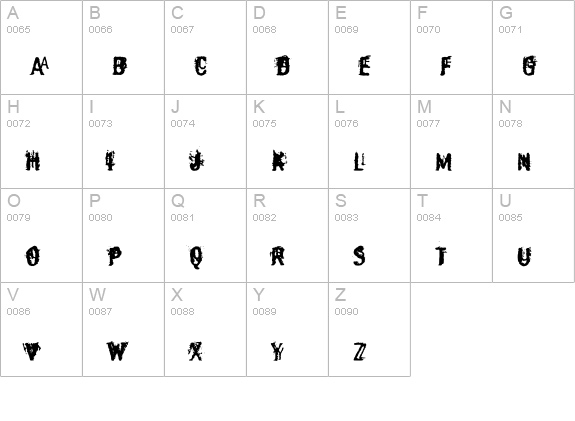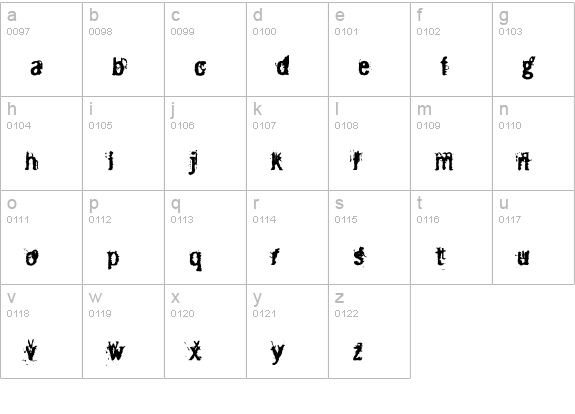
IndecisionDirty Font Details
IndecisionDirty font is a captivating and unique typeface that effortlessly blends the essence of uncertainty with a touch of grunge. Designed for those who embrace the beauty in imperfection, this font exudes a sense of wavering decisions and raw creativity. With its rough edges and uneven lines, IndecisionDirty font showcases a spirited character that adds a distinctive charm to any design project. Whether it's for posters, album covers, or social media graphics, this font will surely make a bold statement and leave a lasting impression. IndecisionDirty font is freely available to download at FontsMarket.com. This means that you can access this incredible font without spending a dime. It's the perfect opportunity to add a touch of ambiguity and edginess to your designs, without breaking the bank. So, why settle for conventional typefaces when you can bring a sense of indecisiveness to your designs? IndecisionDirty font is here to provide you with endless possibilities and creative freedom. Download it today and let your imagination run wild.